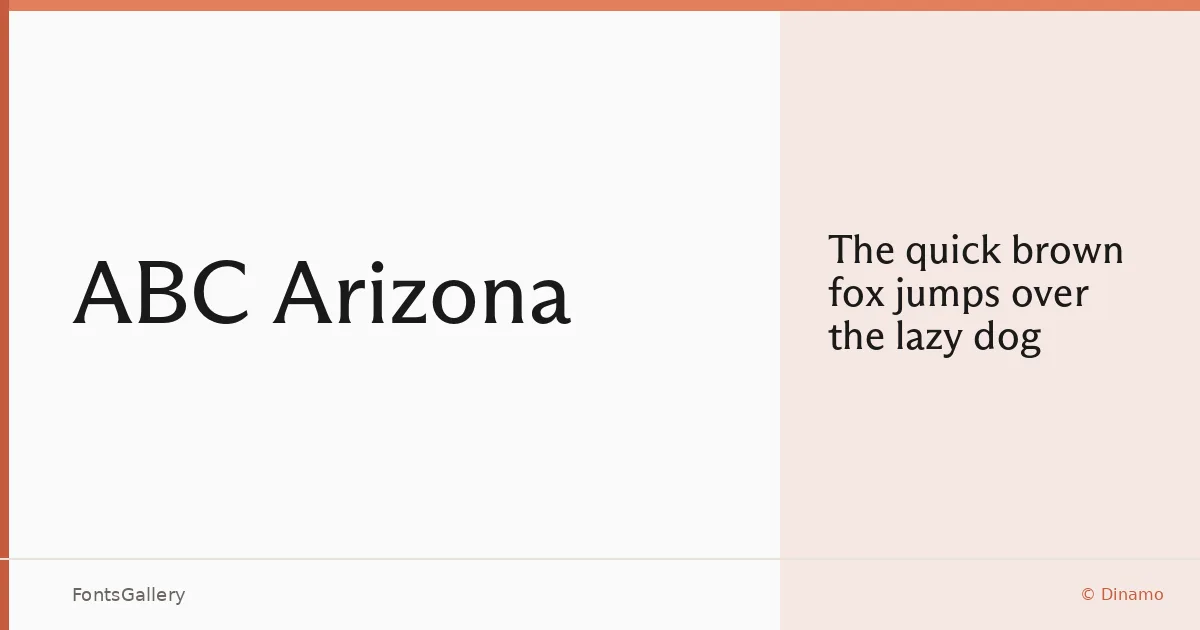
About ABC Arizona Font
There is a particular tension in the flare serif — not quite a slab, not quite a classical roman — and Elias Hanzer's work for Dinamo leans into that tension with quiet confidence. The single cut available, the Flare Regular, carries optical weight that feels both restrained and deliberate, with stroke terminals that flare just enough to give the letters presence without tipping into decoration.
This is a serif with a distinctly modern and minimal disposition — elegant without being precious, professional without being cold. The Flare Regular sits in OTF format and covers Latin script, giving it a focused scope that suits considered typographic work. The letterforms have an editorial stillness to them: the kind of face that holds a headline without competing with the content beneath it.
It earns its place in branding systems, book covers, and magazine layouts where a headline needs gravity and clarity in equal measure — website headers especially benefit from its upright composure. For pairing, it holds well alongside the neutral efficiency of Helvetica or Aileron, softens interestingly against the calligraphic flow of Allura or Ballmain, and finds a clean structural counterpart in Abrade.